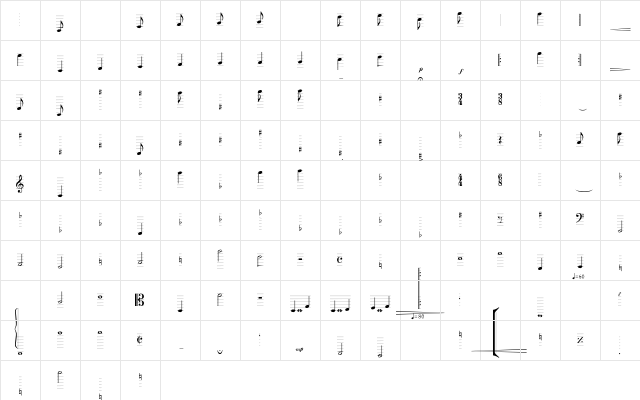
Complete TypeMyMusic Notation glyph index. Displaying only characters natively supported by TypeMyMusic Notation font.
TypeMyMusic is a composed and adaptable typeface that performs quietly and consistently across a wide range of design contexts.